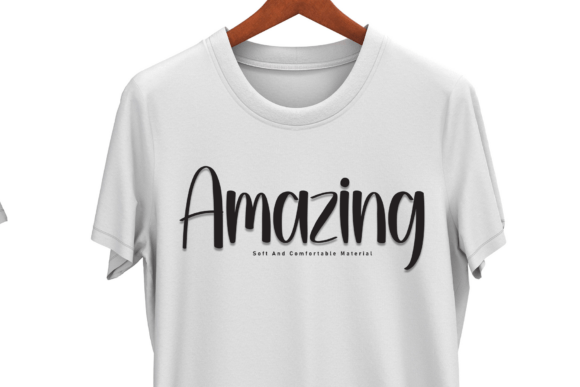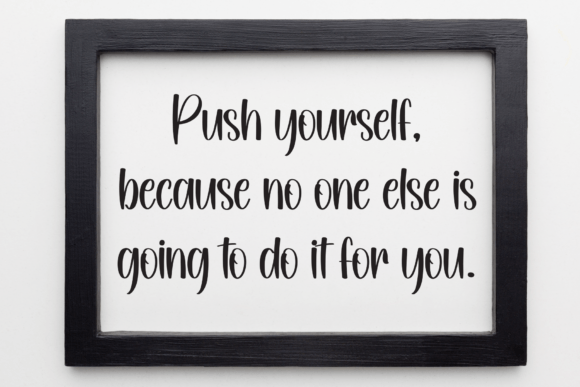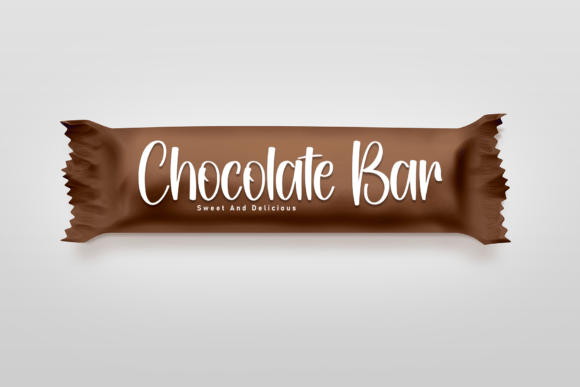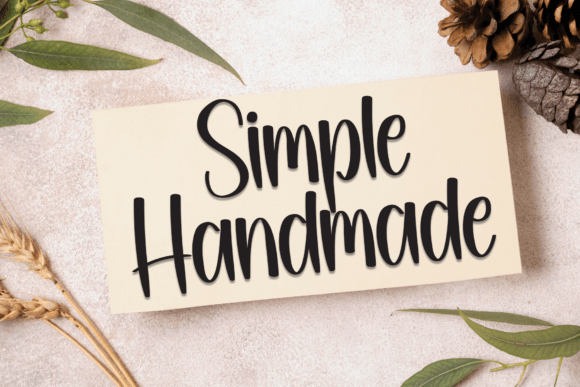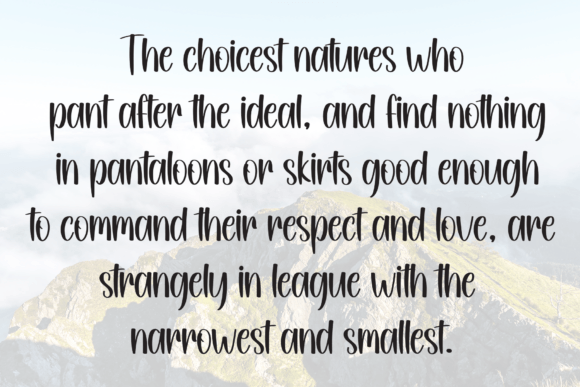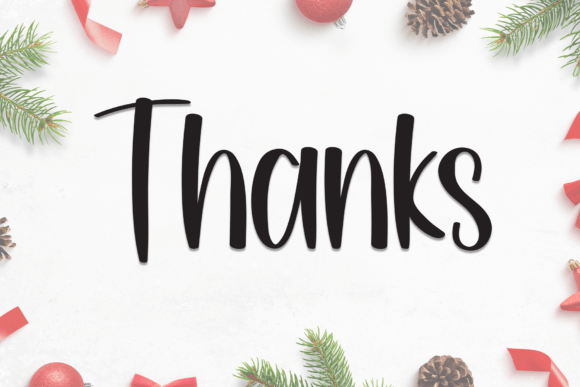
Deck the Halls with Typography: Discovering the Magic of Amelia Christmas Font
As the holiday season approaches, I find myself reminiscing about the countless Christmas cards and gift tags my grandmother lovingly designed for our family gatherings. The intricate doodles, the playful colors, and the heartfelt messages – it was all about the love and thoughtfulness she put into every single detail. And, as I looked closer at her designs, I couldn’t help but notice the beautiful handwriting that brought it all together.
It’s this same spirit of creativity and warmth that inspired the Amelia Christmas Font – a sweet and friendly handwritten font that’s perfect for adding a personal touch to your holiday designs. With its natural and unique style, the Amelia Christmas Font is incredibly versatile, making it an ideal choice for a wide range of projects, from gift tags and cards to packaging and advertisements.
For designers, the Amelia Christmas Font is a valuable asset, offering a wide range of creative possibilities and a chance to add a touch of personality to their work. Whether you’re a seasoned pro or just starting out, this font is sure to inspire your imagination and help you create something truly special.
- Unique Characteristics: Amelia Christmas Font features a distinctive, hand-drawn design with intricate details and ornaments, adding a touch of whimsy and festivity to holiday-themed projects.
- Scalability: Amelia Christmas Font is designed to be highly scalable, allowing it to be used effectively in various design contexts, from small text to large headings and titles.
Amelia Christmas Font Review
Overall, I think the Amelia Christmas Font is a great choice for anyone looking for a festive, elegant feel to their designs. ✨ It has a nice, classic look that can be used for a variety of projects, from Christmas cards to gift tags and more.
The font has a good range of characters, including uppercase and lowercase letters, numbers, and punctuation. The design is well-balanced, making it easy to read and understand. ✨ The font also comes in a range of weights, from light to bold, which can be useful for creating visual interest in your designs.
One of the main limitations of the Amelia Christmas Font is that it’s a bit limited in terms of customization options. ⚠️ You can’t change the color or size of the font in the same way that you can with other fonts, which may limit its flexibility in certain situations.
Another limitation is that the font is only available in a few different styles, which may not be suitable for all projects. ⚠️ However, for most Christmas-themed projects, I think the font will be more than sufficient.
I think the Amelia Christmas Font is a great choice for anyone looking for a classic, elegant feel in their designs. While it has some limitations, I think the benefits outweigh the drawbacks. With its well-balanced design and range of characters, I think this font is a great addition to any designer’s toolkit.
- Well-balanced design makes it easy to read and understand.
- Range of characters, including uppercase and lowercase letters, numbers, and punctuation.
- Available in a range of weights, from light to bold.
- Limited customization options.
- Only available in a few different styles.